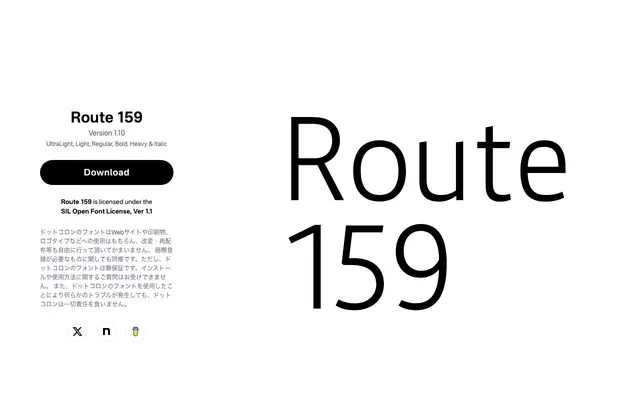
Route 159
A screen-oriented sans-serif from Dot Colon, developed as a webfont with open counters for improved legibility at small sizes.
Developed by Dot Colon as their own webfont, Route 159 builds on the studio's experience with Vegur and Aileron to prioritise on-screen readability. Letterforms such as b, d, p and q are drawn with wider internal counters to resist filling in at small display sizes. Five weights from UltraLight to Heavy are included alongside an italic, and the font is released under the SIL Open Font Licence.
A screen-oriented sans-serif with open counters and legibility-focused letterform decisions, placing it in the humanist sans tradition rather than geometric or grotesque.